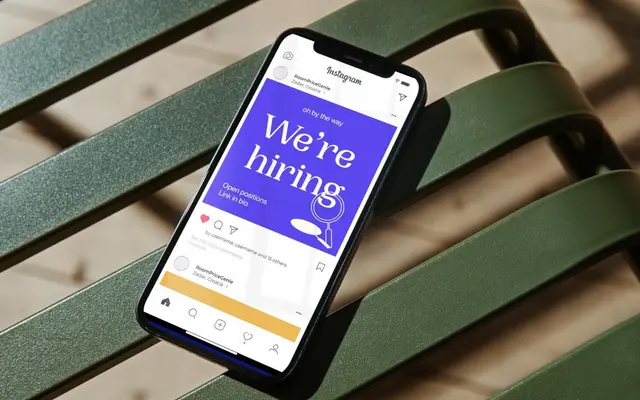
Woodland
Pangram Foundry · Mat Desjardins · 2019
A six-weight organic serif by Mat Desjardins with soft curves and a distinctive lowercase 'e', suited to editorial and brand work.
Designed by Mat Desjardins, Woodland runs from Ultralight to Heavy across six weights, each carrying over 2,500 glyphs including old-style figures, standard ligatures and stylistic alternates with curvier forms. The quirky lowercase 'e' gives the family a gentle personality without disrupting readability at body sizes, and the alternates allow for a more expressive register when needed. Coverage extends to a broad range of Latin-based languages, making it practical for European multilingual projects.
Classified by the foundry under Organic and Serif; the soft curves, quirky alternates and warm personality place it firmly in the organic serif subcategory rather than a classical or transitional tradition.